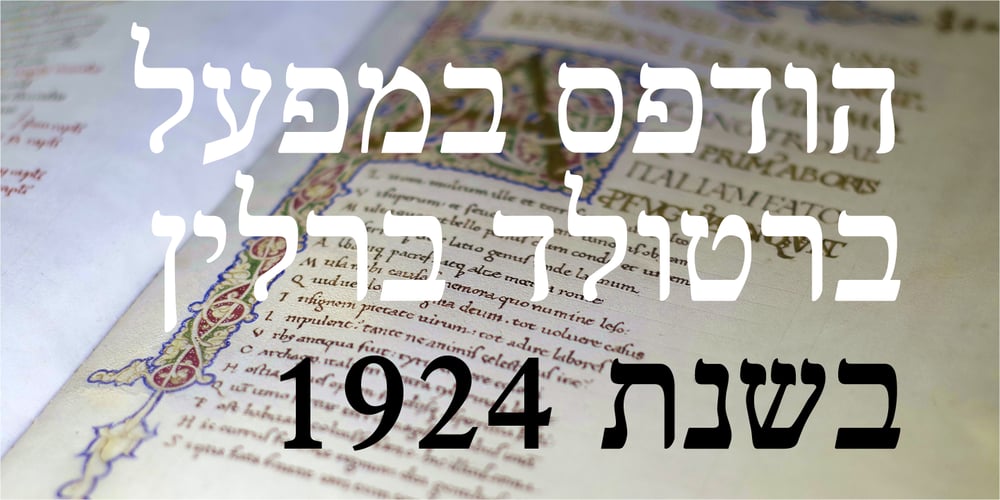
Frank Ruhl1924 MF Font Family was designed by Rafael Frank and published by Masterfont. Frank Ruhl1924 MF contains 2 styles and family package options. The most common Hebrew typeface, based on Sefaradic tradition, used in most newspapers and publications. The main Hebrew typeface of the 20th century, designed in 1908 and was published by Berthold in 1924.OpenType ProExcellent support for Niqqud (Vowels). All marks are programmed to fit each glyph’s shape and width. OpenType Pro includes new advanced features like Dagesh Hazak, ShevaNa, Qamatz Katan, Holam Haser and wide letters.Best used with Adobe InDesign CC that support complex Hebrew text.Please check these advanced features in this link:https://tinyurl.com/ybgdsxmeFont files were re-generated to get better online screen display, as well as refined OpenType features as kerning glyph substitution.